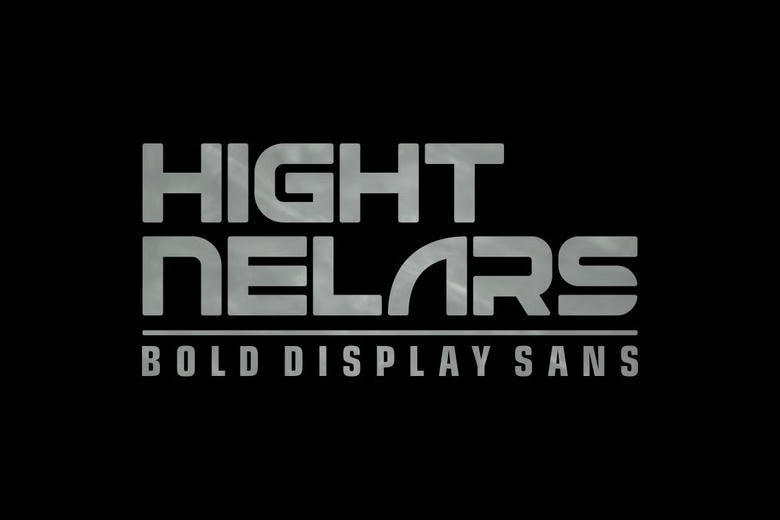
Hight Nelars Font
Hight Nelars Font Bold Display Sans is a bold and a genuine display font. The font fits any branding work such as logo, esport, and a host of others. excellent in a broad context.
Hight Nelars Display Sans Font